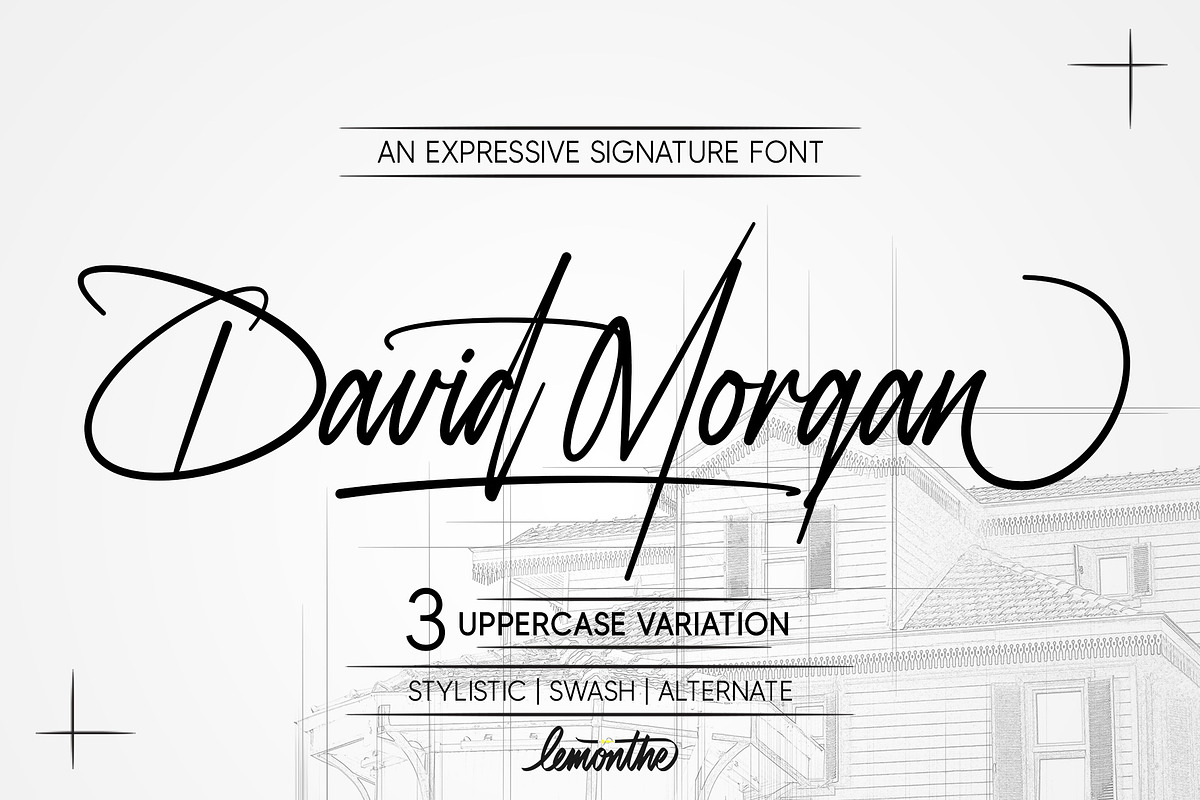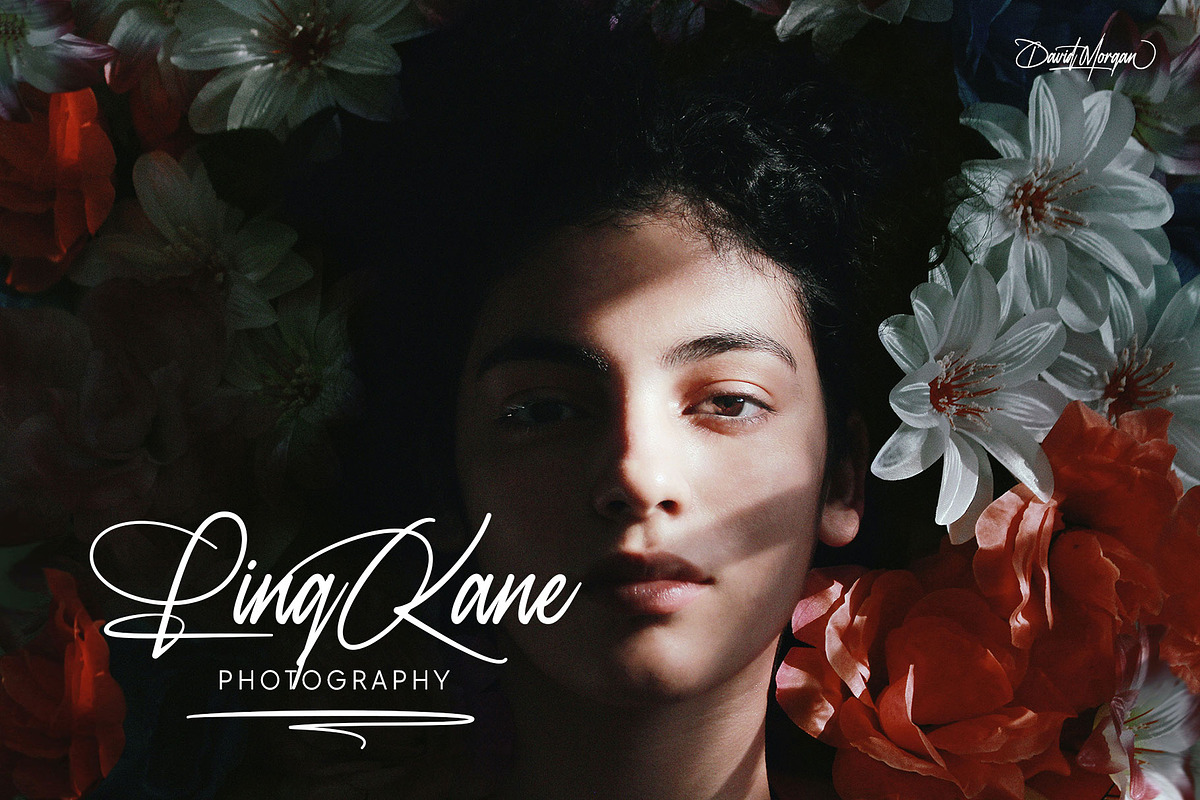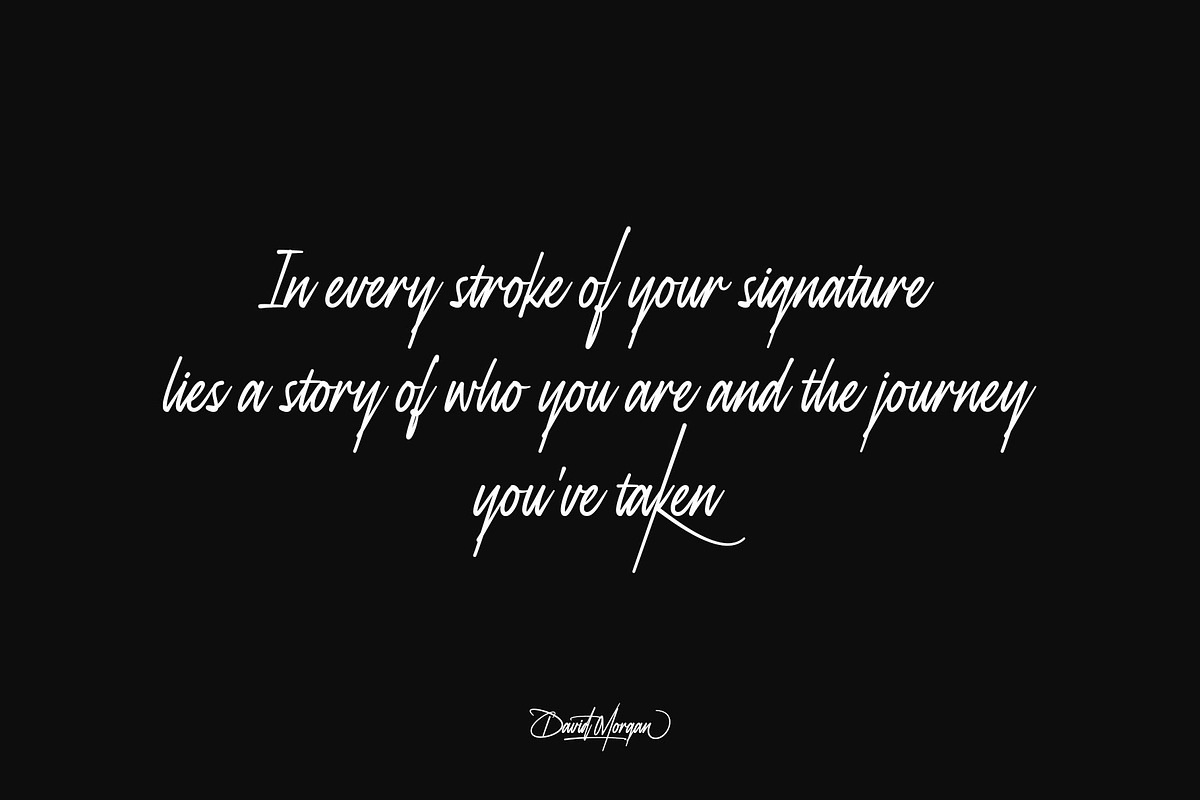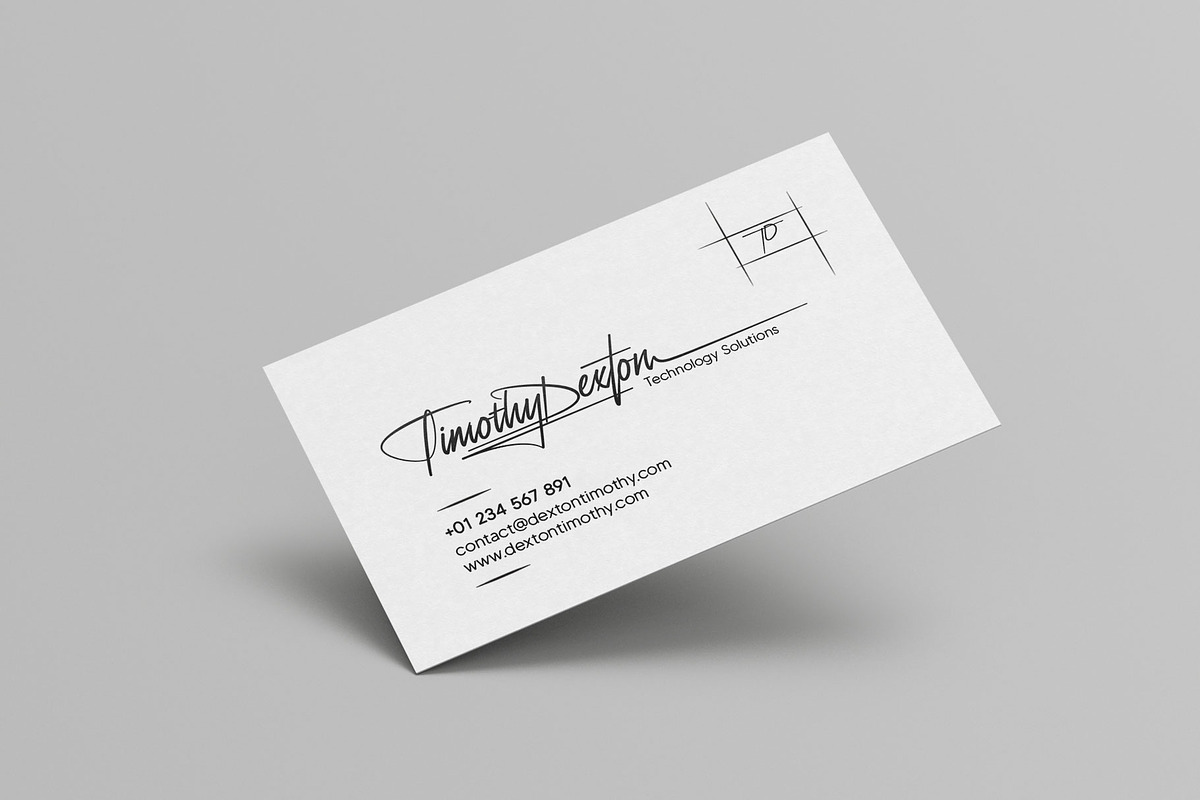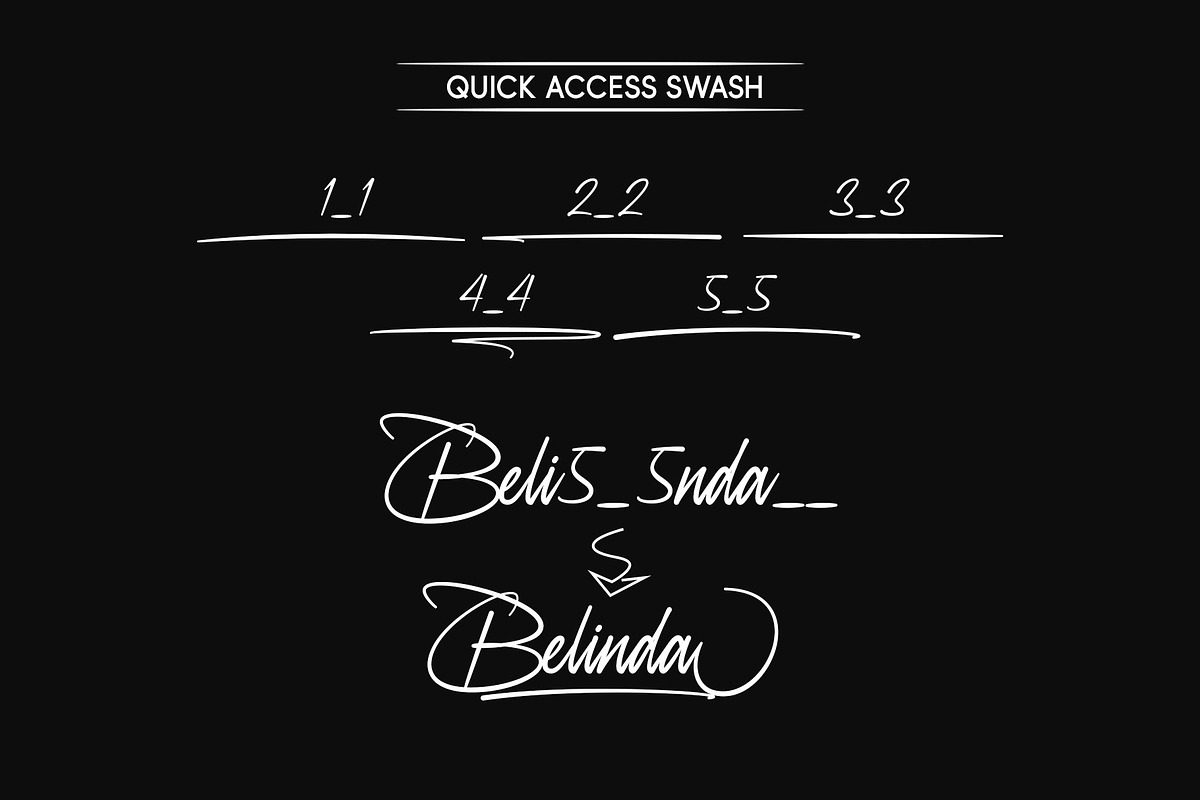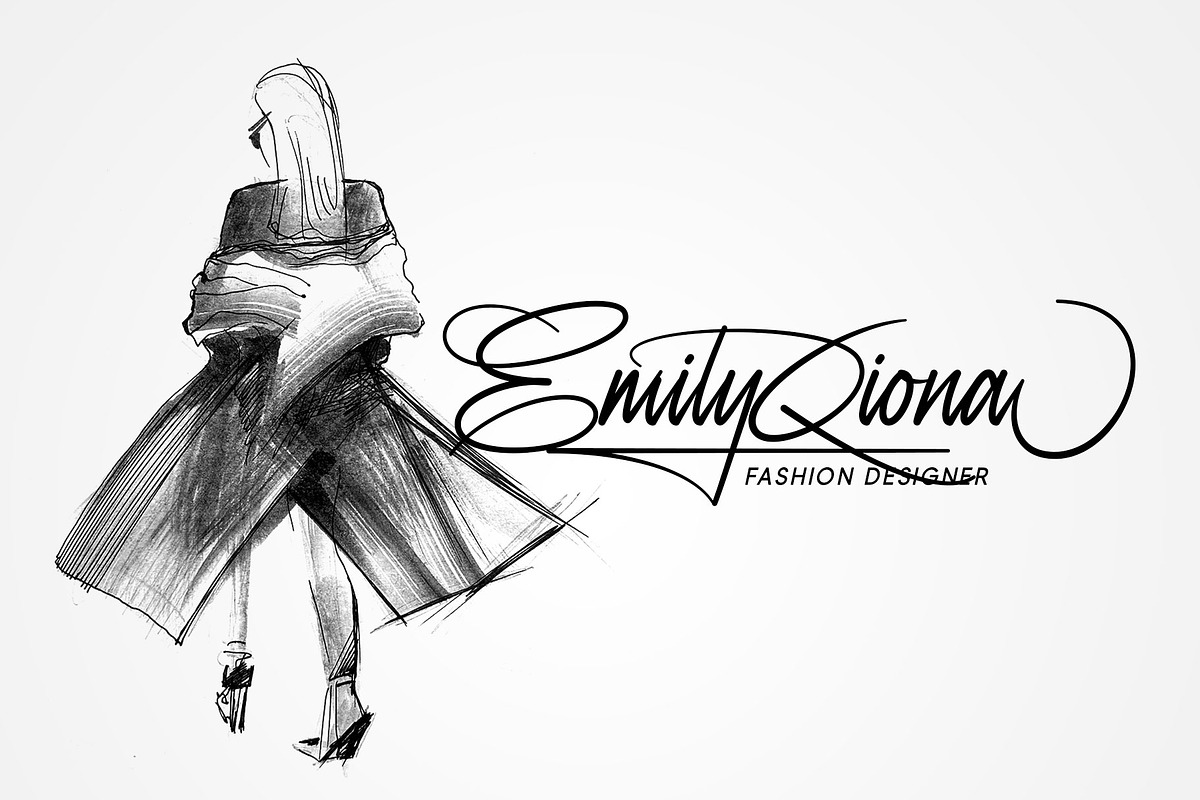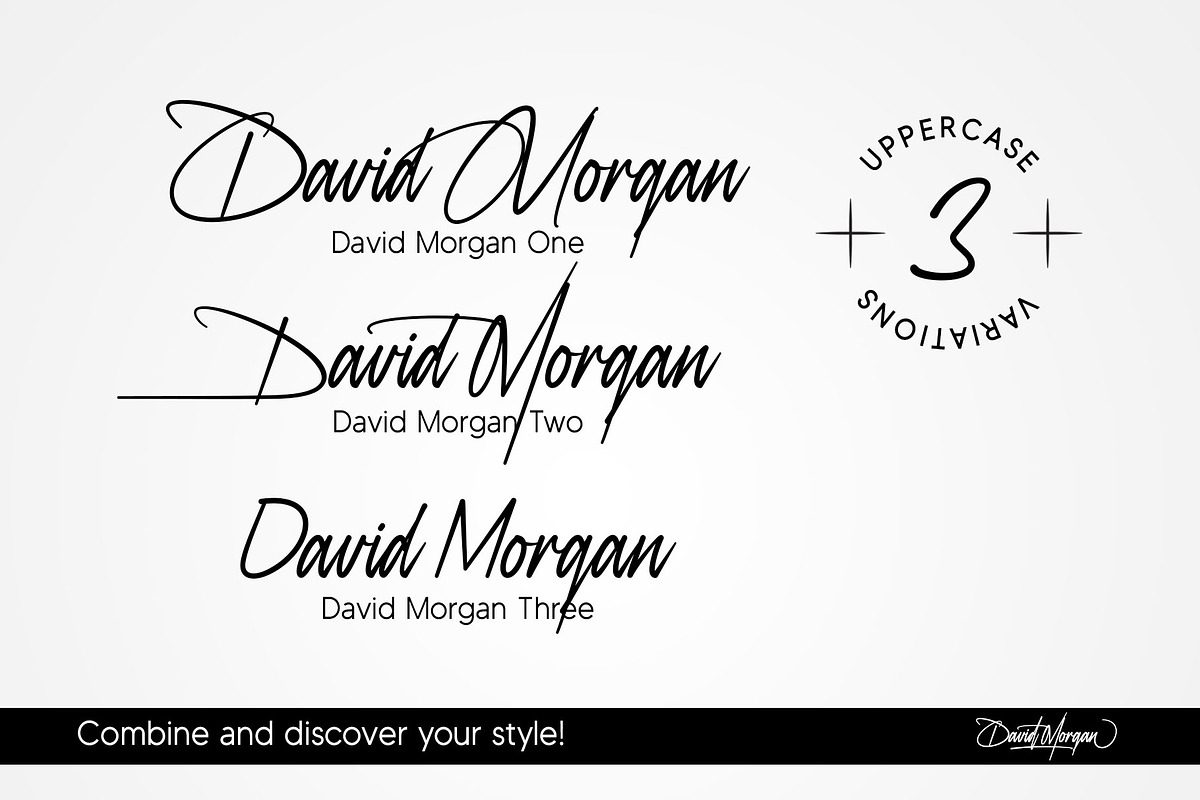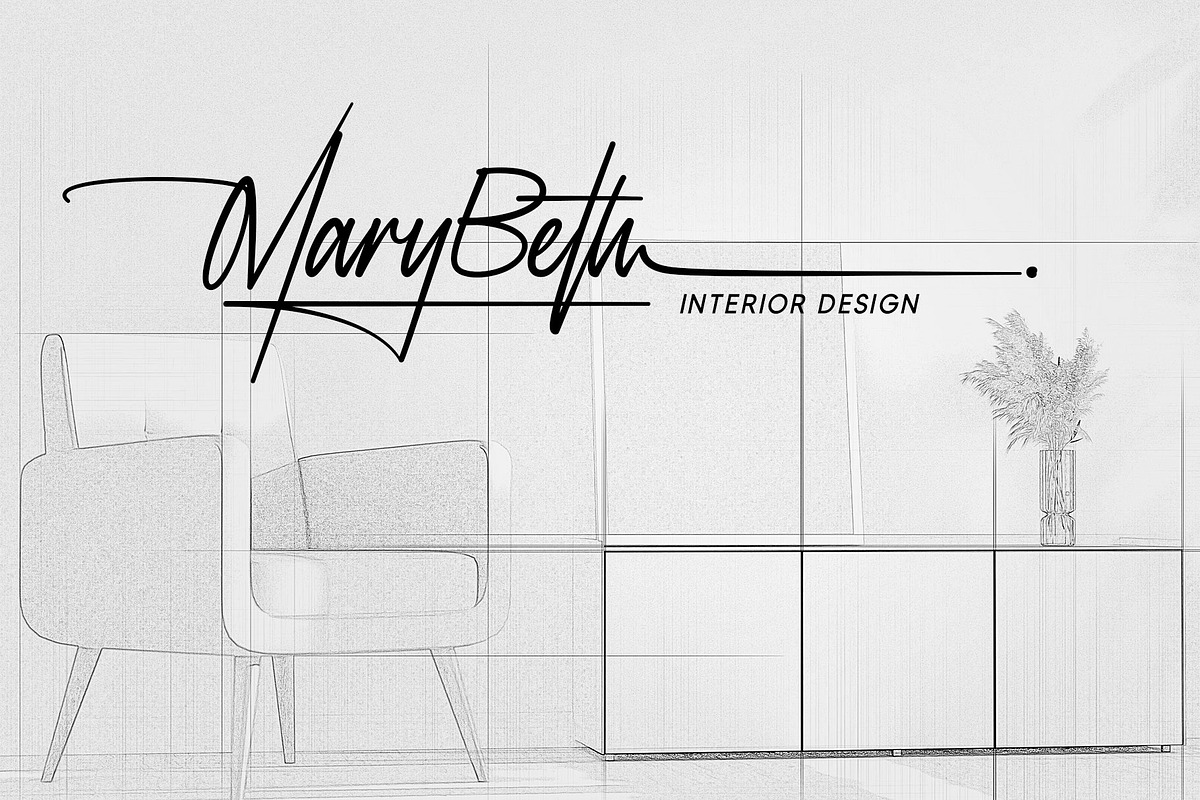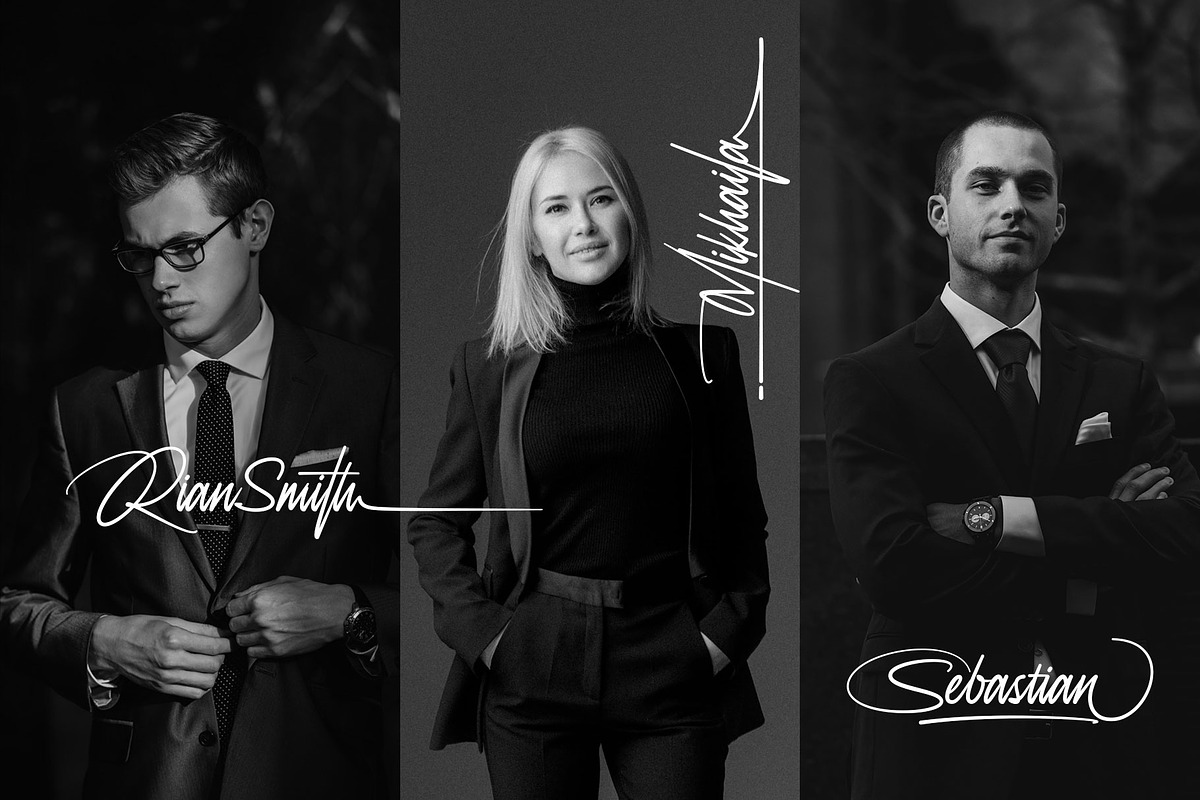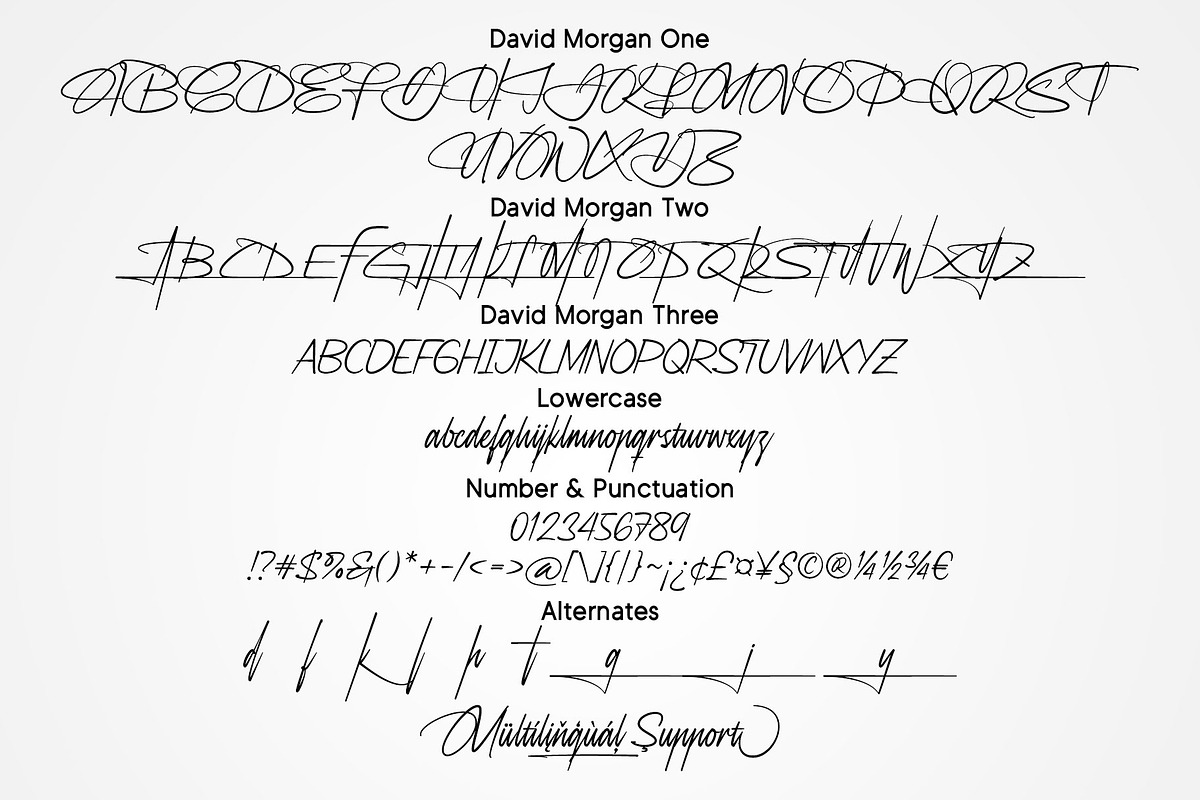
David Morgan | Stylish Signature
David Morgan is a signature-style font designed with distinctive beauty and expression, featuring three uppercase variations and equipped with Stylistic, Swash, and Alternate features. David Morgan provides flexibility in its use, allowing you to combine various variations to find your unique style. It is suitable for a variety of design projects such as logos, branding, photography, business cards, product designs, digital signatures, and much more.
- Stylistic Set
- SS01: Add 2x underscores at the end of lowercase letters a-z
- SS02: Add 3x underscores at the end of lowercase letters a-z
- SS03: Add 4x underscores at the end of lowercase letters a-z
- Swash: Add number(1-5)+underscore+number(1-5) Ex.: 1_1, 2_2, 3_3, 4_4, 5_5